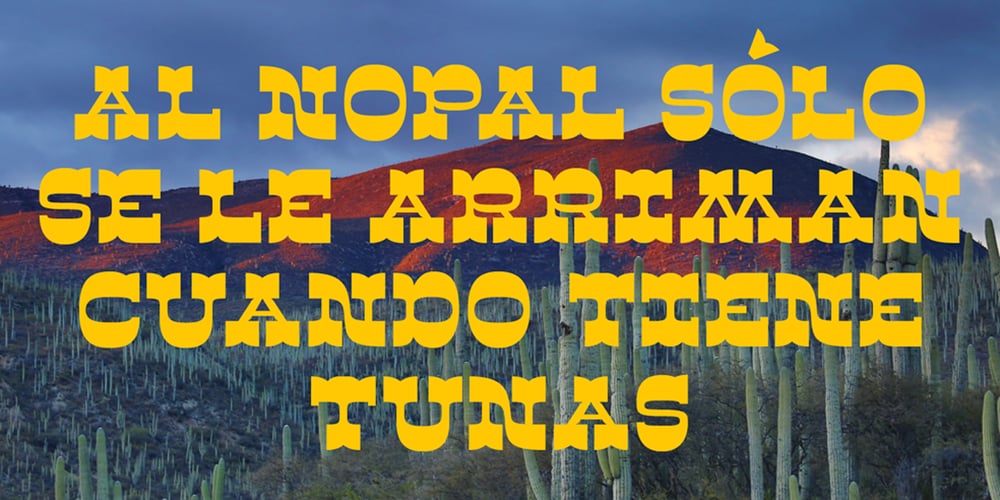
Sarastrada
Sarastrada font
Sarastrada Font Family was designed by Miguel A. Contreras Cruz and published by Letter INC.. Sarastrada contains 5 styles and family package options. Sarastrada is a four weights typeface inspired in the Wild West posters. Published by Letter INC.